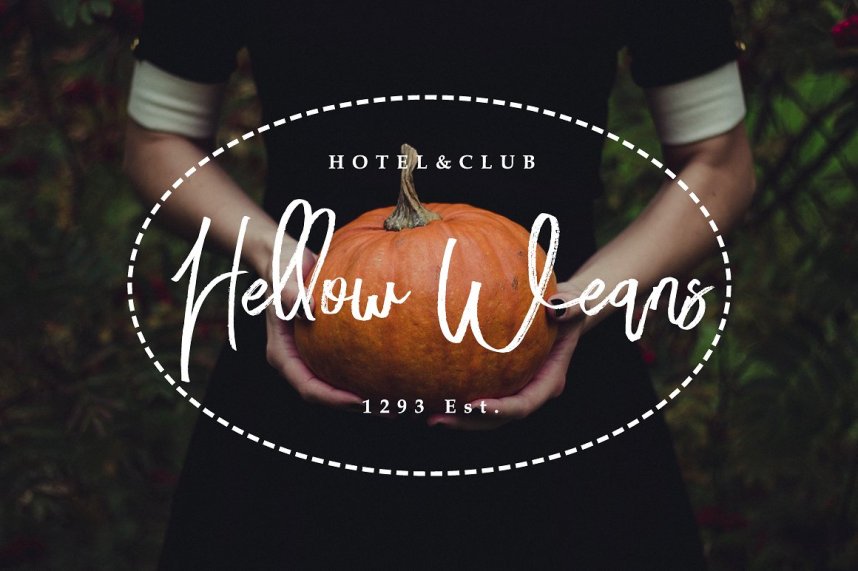
Bloomy Script Font
Bloomy Script – Handwritting Font
Go into a more simple but sophisticated direction for your projects with this perfect typography. Introducing Bloomy Font. It is was designed and shares by FeyType Std. Bloomy Script is Dry Brush Script Font with handletter style, with unique script modern calligraphy include decorative doodles and 12 premade logos. Suitable for design, element design, wedding, event, t-shirt, logo, badges, sticker, and awesome work, etc…